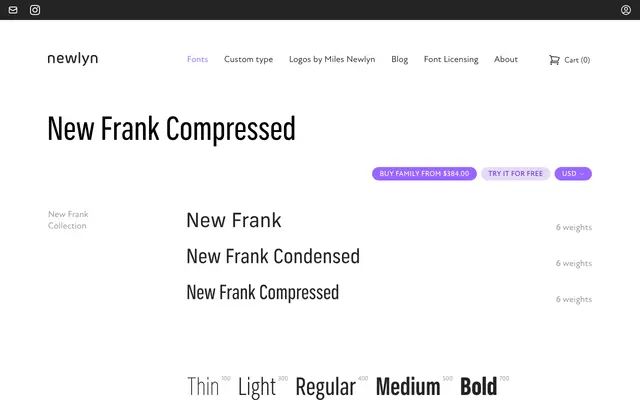
New Frank Compressed Italic
New Frank Compressed Italic specimen from Newlyn
A compressed grotesque cut from the New Frank family, offering six weights with matching italics for tight-set display and poster work.
New Frank Compressed is the narrowest of three width variants in the New Frank collection, sitting alongside the standard and Condensed cuts. Six weights run from Thin to ExtraBold, each paired with an italic, giving a total of twelve styles within the Compressed subfamily alone. The tight proportions and upright grotesque structure suit headline setting, arcade-style display work and any context where horizontal economy matters.
A compressed grotesque sans-serif, part of the wider New Frank collection that includes standard, condensed and compressed widths across multiple weights with italics throughout.